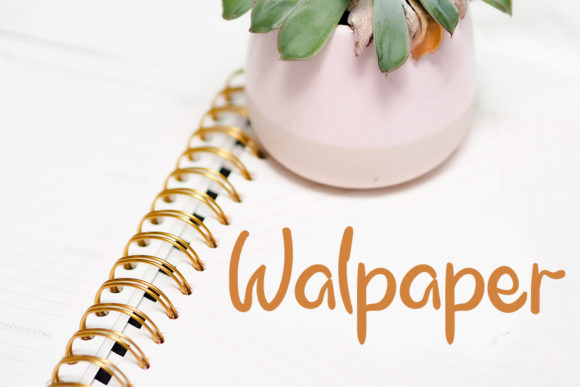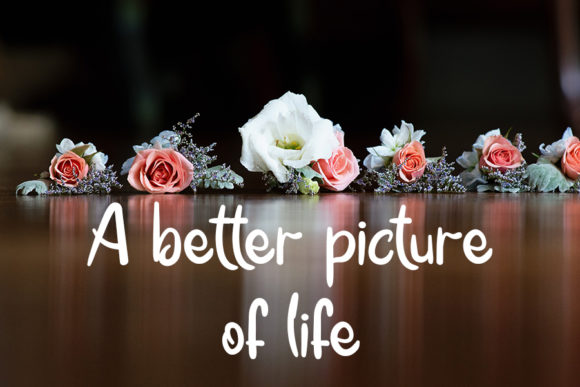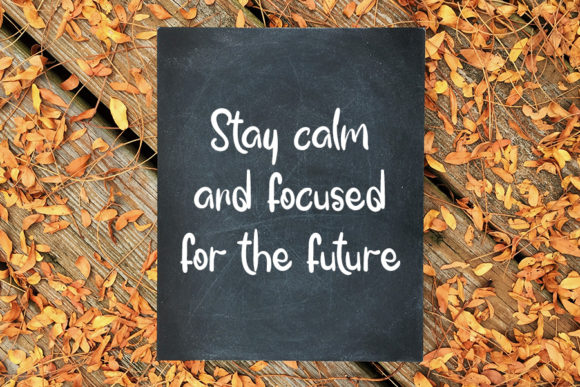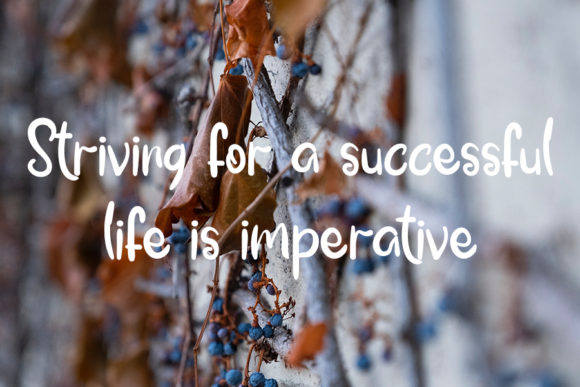
Ameliya Font
About Ameliya Font
Ameliya is a bold and fun handwritten font. Use this font to add that special touch to any design idea you can think of!